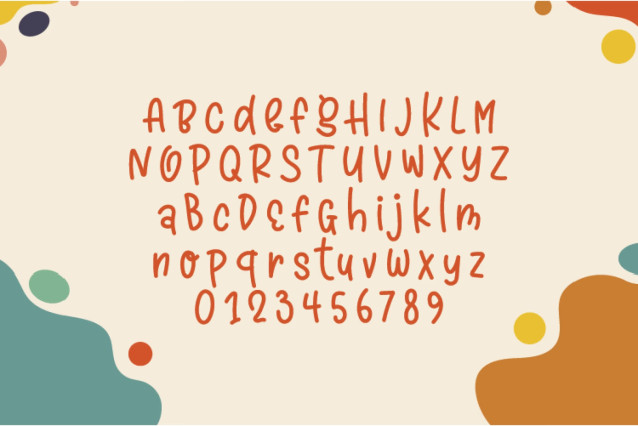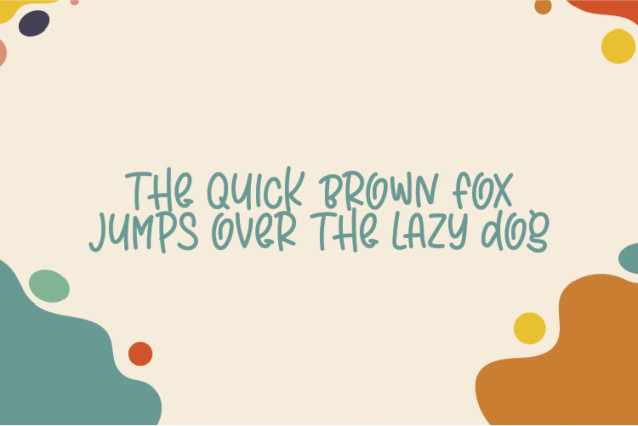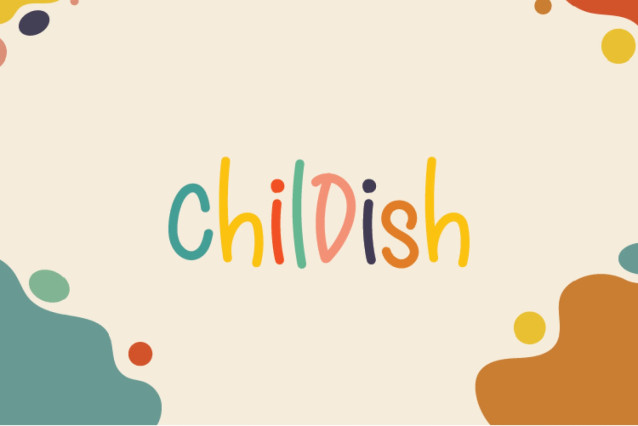
Childish HS Font
Childish is a natural and casual handwritten font. Whatever the topic, this font will be a wonderful asset to your font library, as it has the potential to enhance any creation.